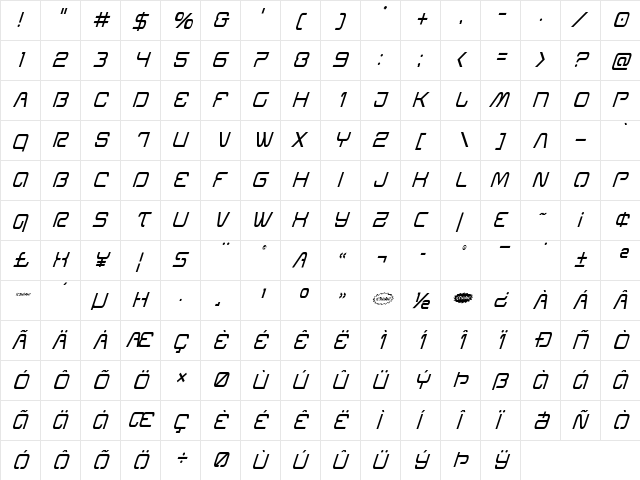
Miracle Mercury Condensed Italic Condensed Italic
Design Context for Miracle Mercury Condensed Italic Typeface
Miracle Mercury Condensed Italic is a composed and adaptable typeface that performs quietly and consistently across a wide range of design contexts. The slanted form adds forward momentum and visual energy. Its narrow stance lets it pack a punch even in space-constrained designs.
Pro Tip: Use Miracle Mercury Condensed Italic for emphasis, pull quotes, and subheadings where its slanted energy can add rhythm to the layout.